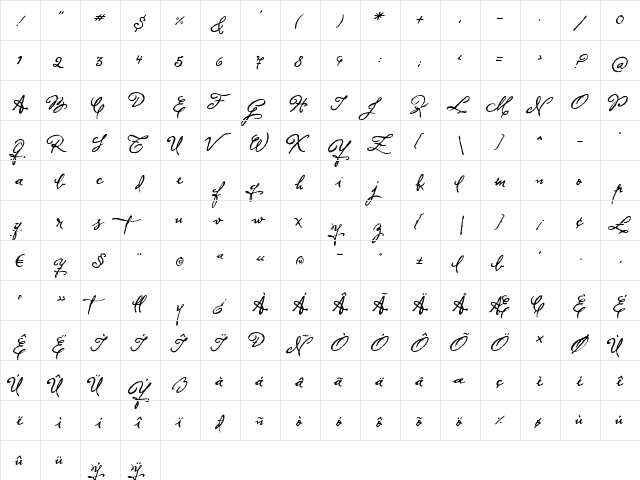
Herencia Regular
Design Context for Herencia Typeface
Herencia is a composed and adaptable typeface that performs quietly and consistently across a wide range of design contexts.